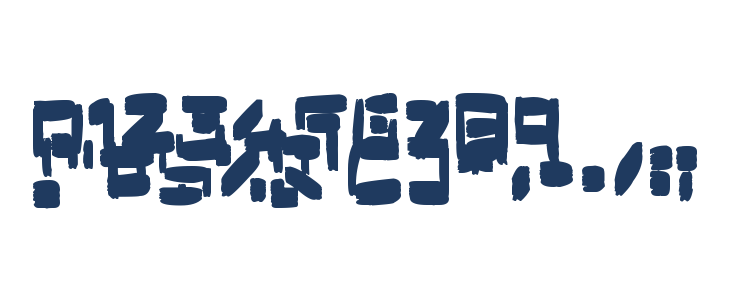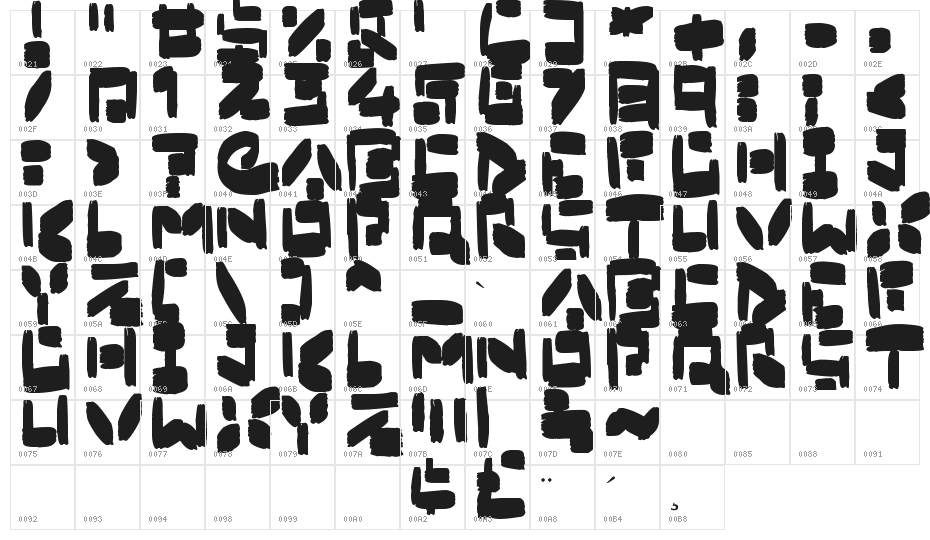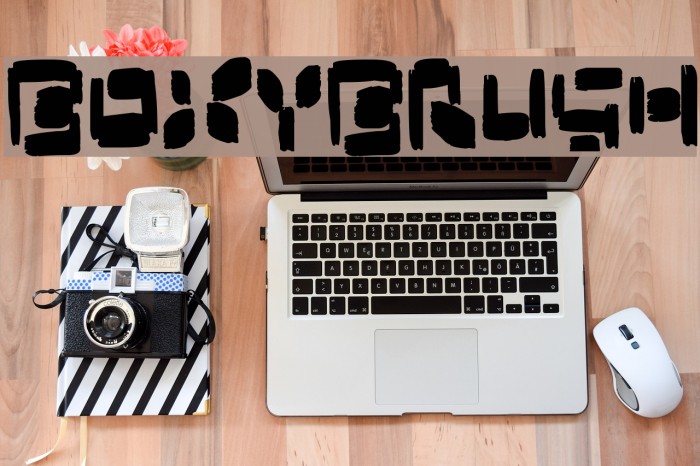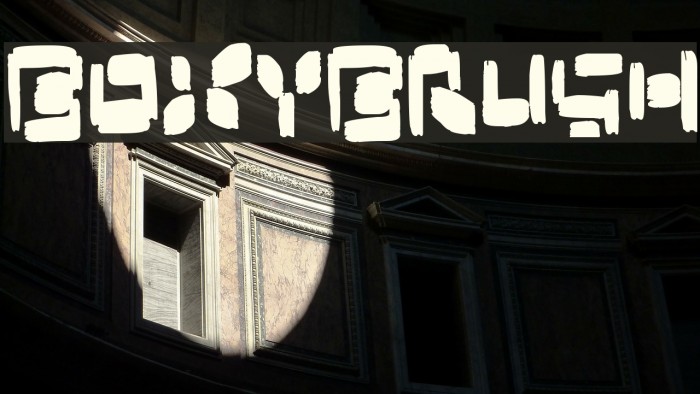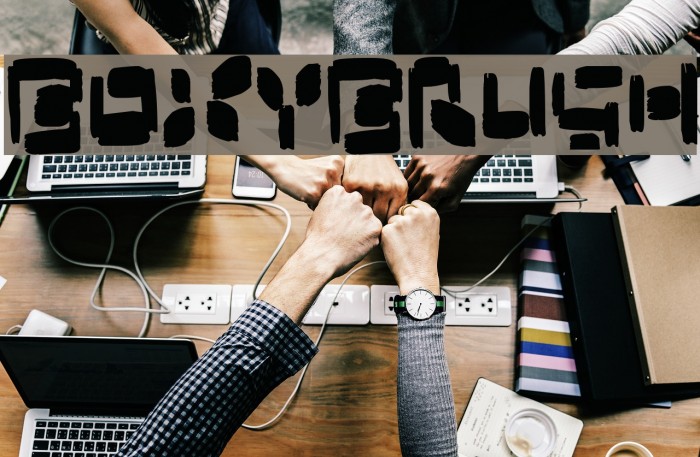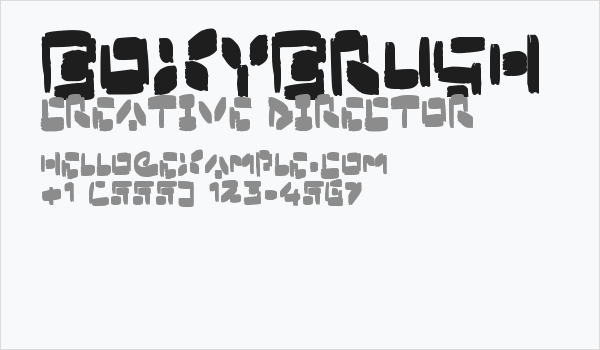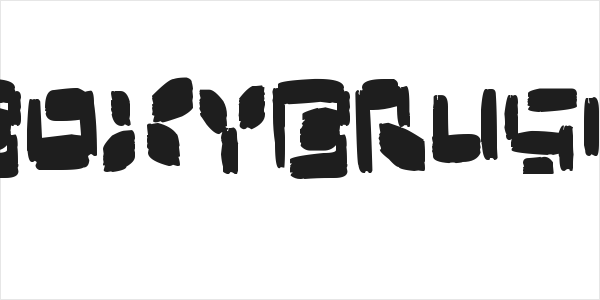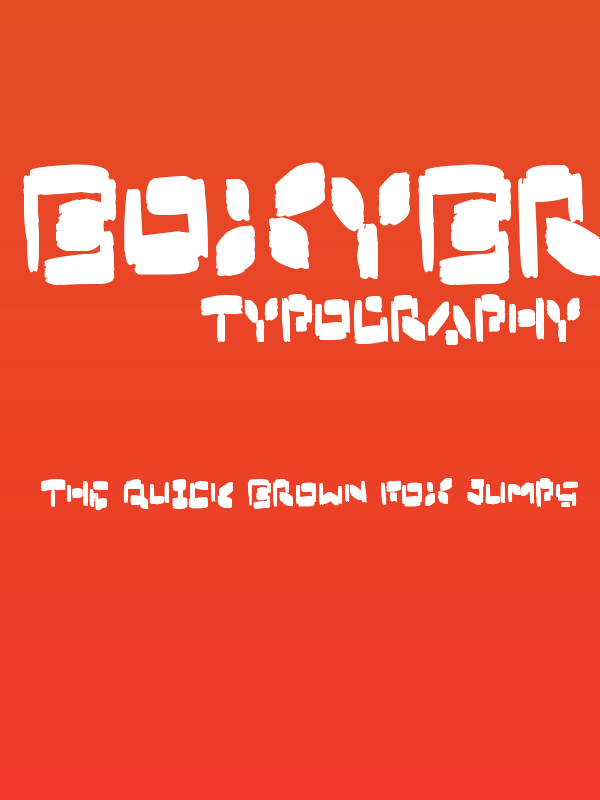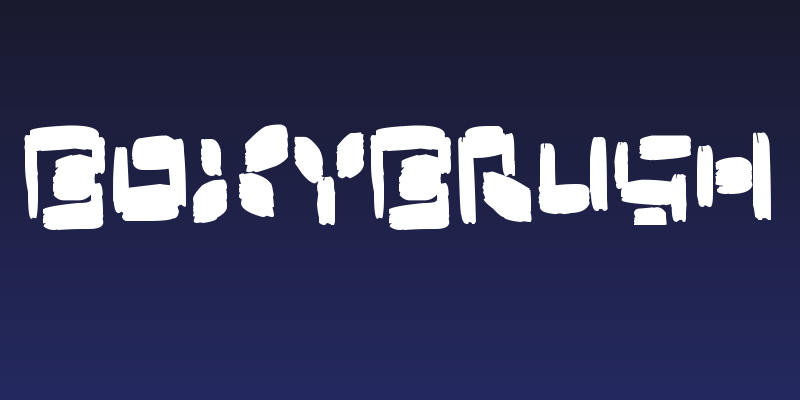
Boxybrush Font
Boxybrush Description
This font features a bold, brush-stroke style with a distinctly boxy appearance. The characters are heavily stylized, with thick strokes and irregular edges that give a hand-painted look. The uppercase and lowercase letters maintain a consistent visual weight, while the numbers and special characters follow the same artistic theme. The design is highly decorative, making it suitable for eye-catching headlines or artistic projects. Its unique style is reminiscent of graffiti or street art, offering a modern and edgy aesthetic.
Overall StyleModern, Artistic
Proposed ProjectsIdeal for street art designs, urban-themed posters, album covers, or any project requiring a bold, artistic flair.